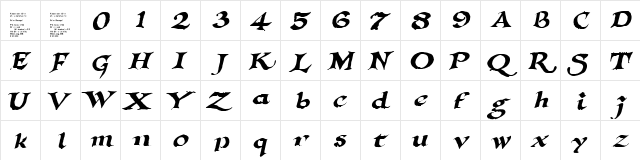
Gabriel reg. Italic Demo Italic Font Preview
Gabriel reg. Italic Demo Italic
Design Context for Gabriel reg. Italic Demo Typeface
Gabriel reg. Italic Demo is a composed and adaptable typeface that performs quietly and consistently across a wide range of design contexts. Its italic angle brings a sense of urgency and motion to the letterforms.